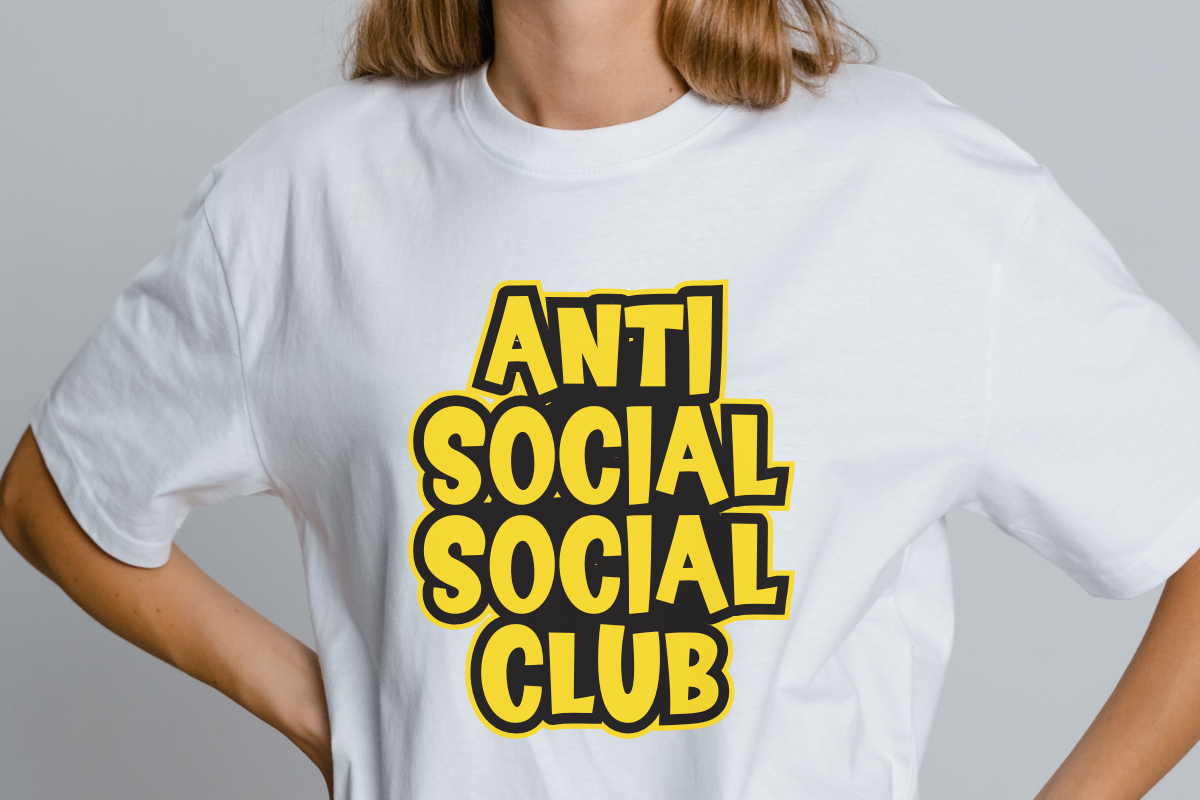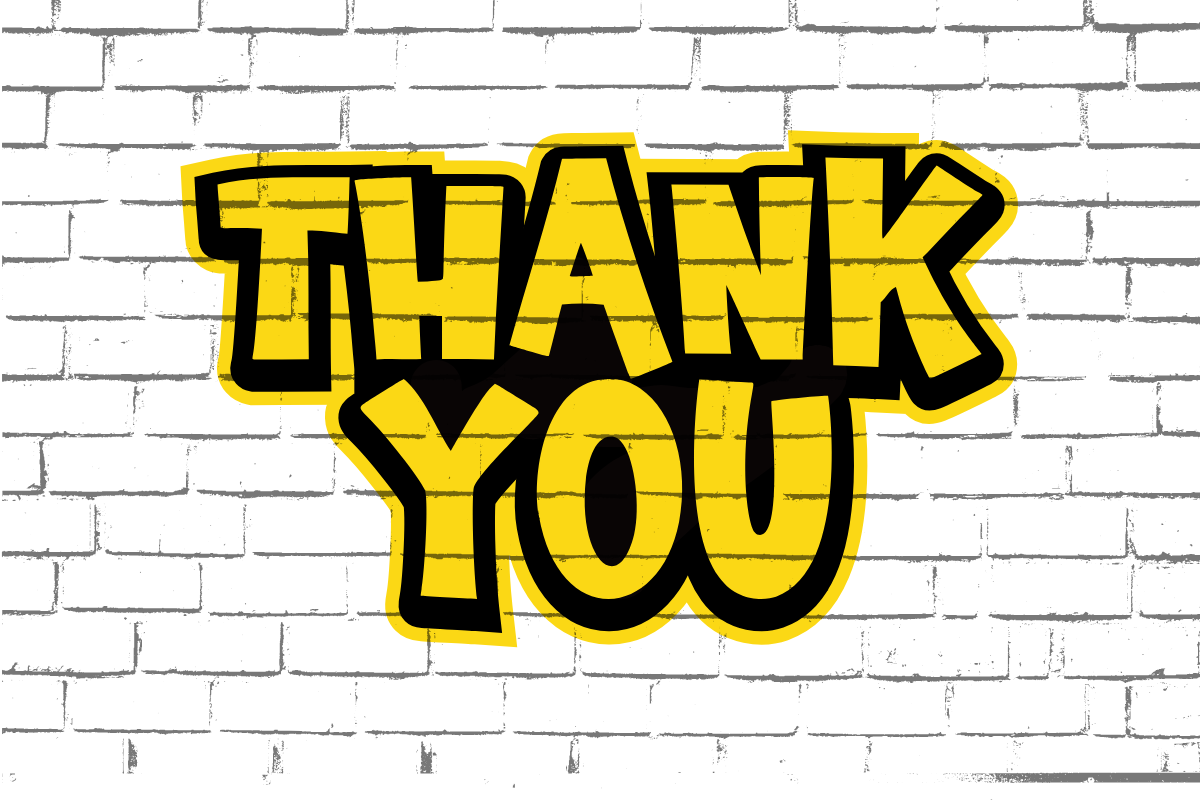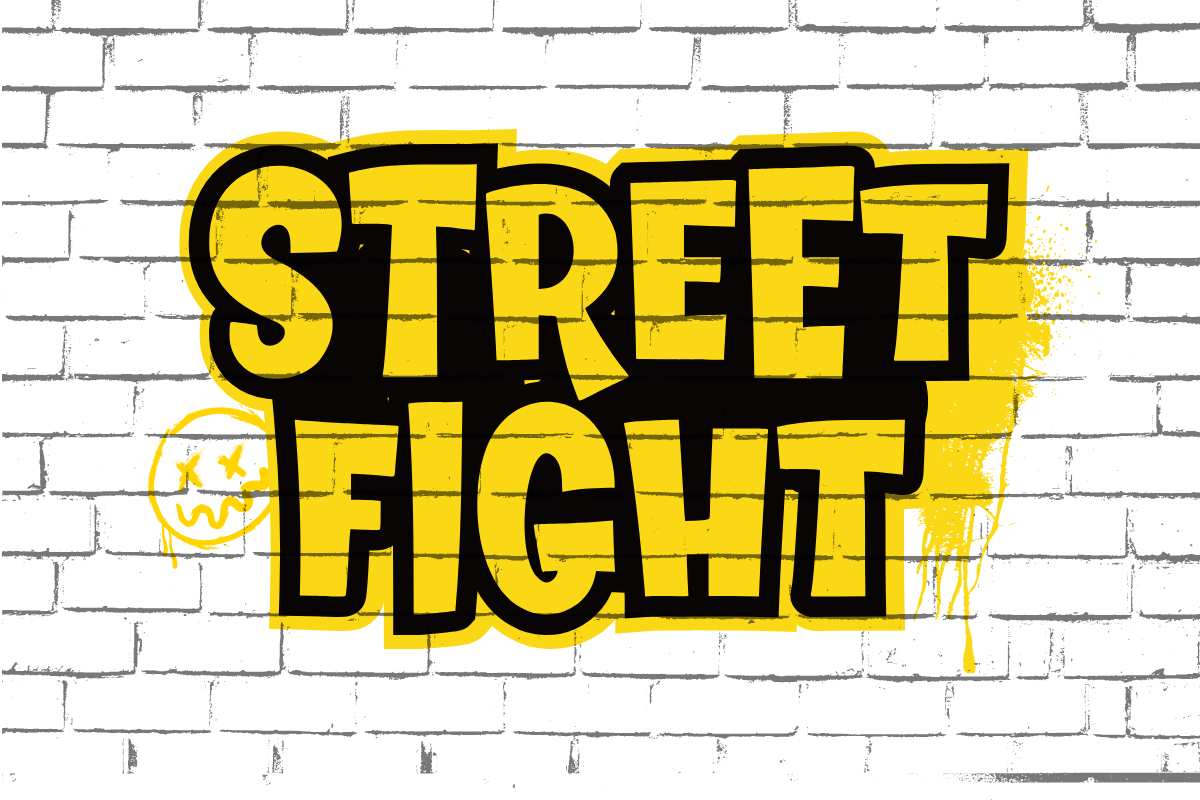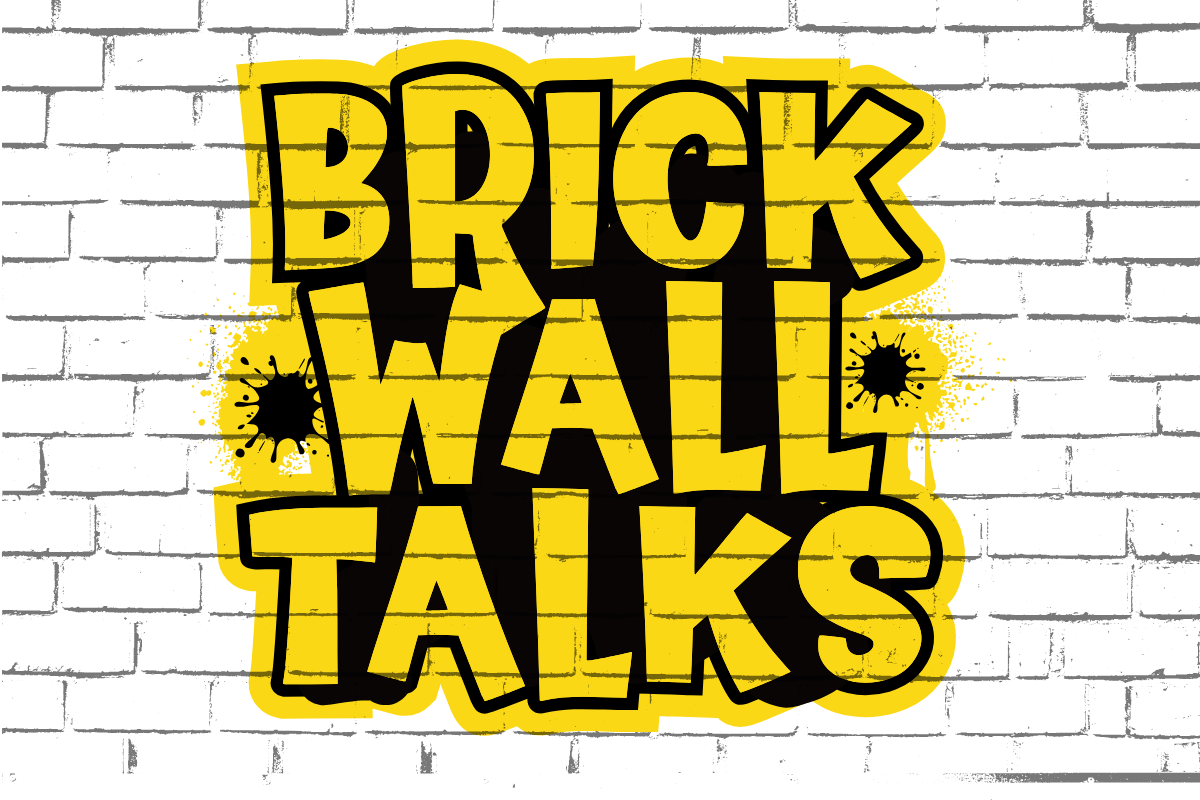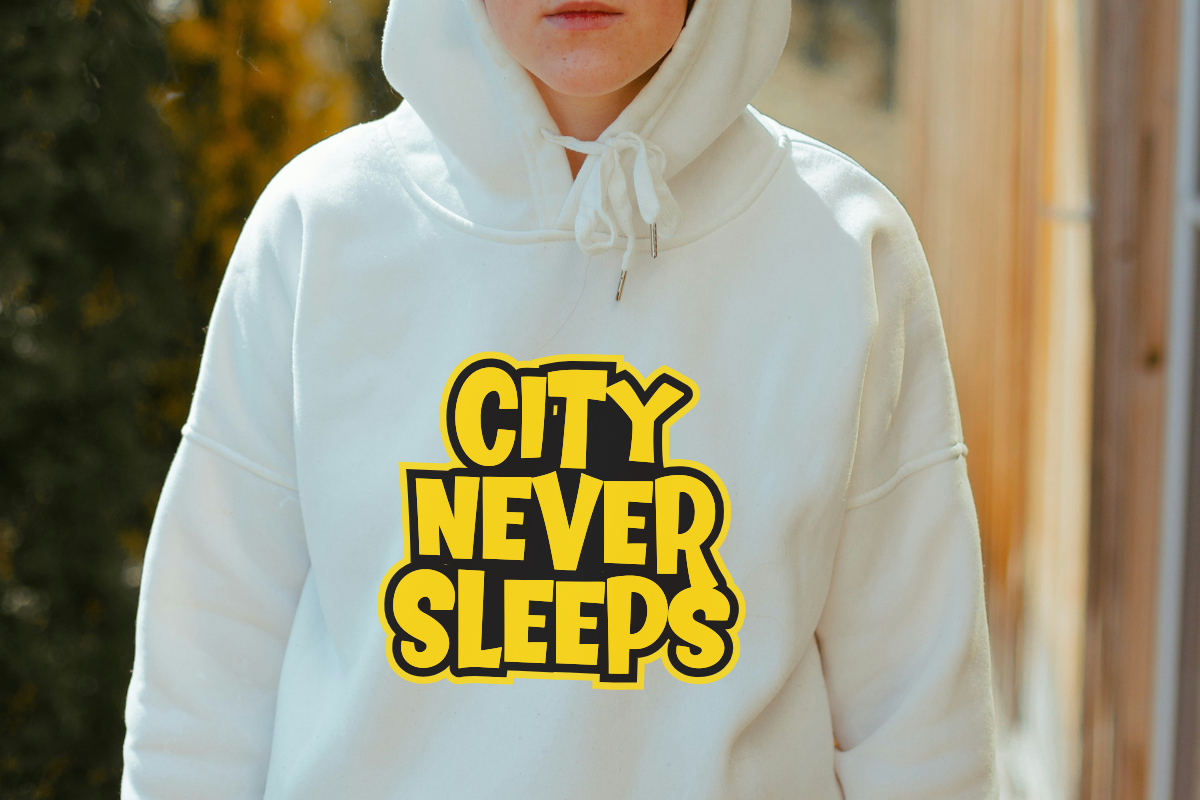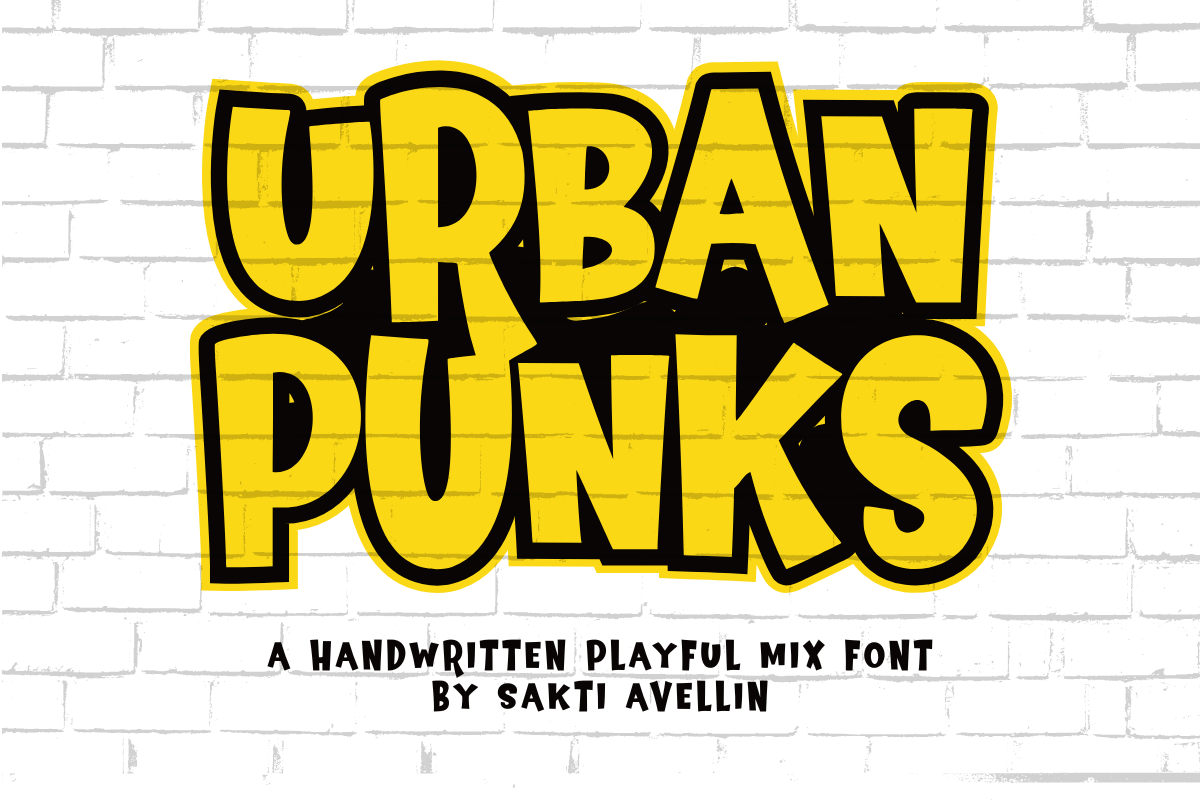
Urban Punks - Playful Mix Font
Urban Punks is a bold, edgy, and high-impact handwritten playful mix font designed to bring raw street energy and underground style to your creative projects. This chunky display font features strong, rebellious letterforms with a hand-drawn feel, making it perfect for streetwear branding, punk rock posters, sticker designs, urban apparel, and bold social media graphics. Its thick, eye-catching style ensures it stands out as a powerful decorative typeface for headlines and packaging, appealing to a modern audience that loves gritty, youthful, and DIY aesthetics. Unleash your creative rebellion with the unique character of this bold urban font!